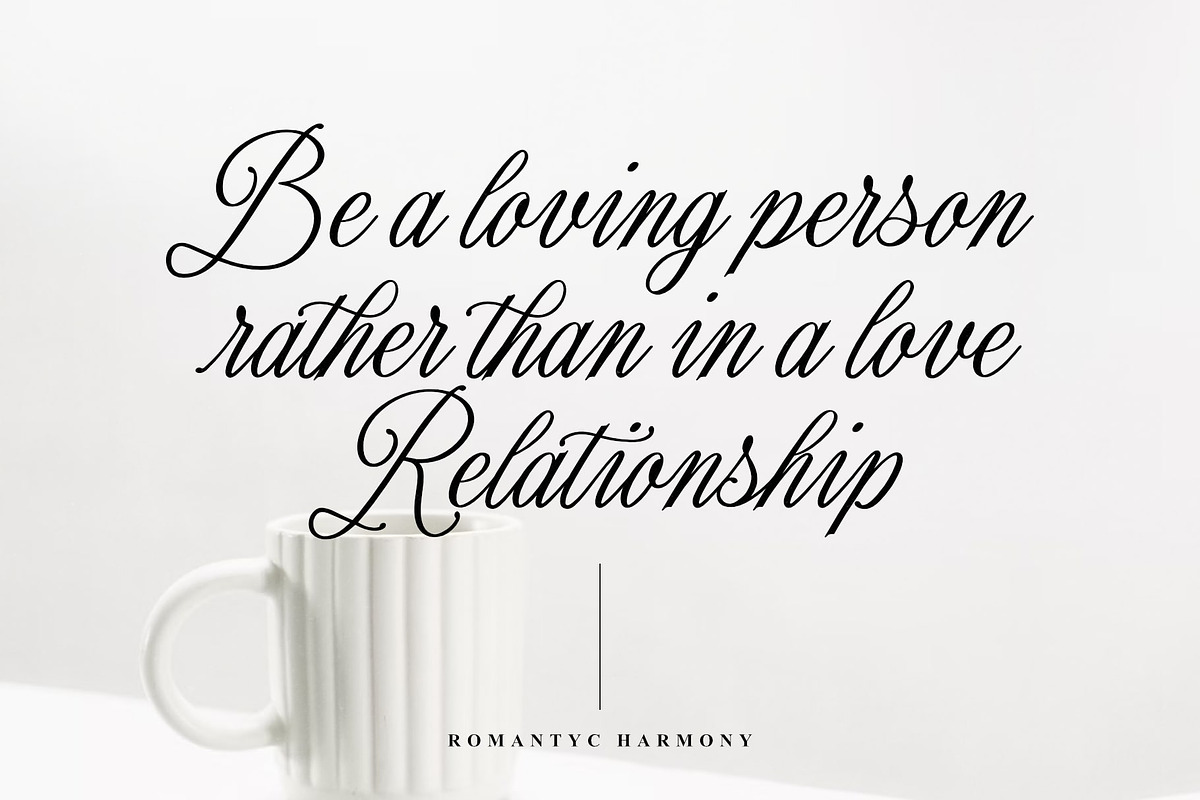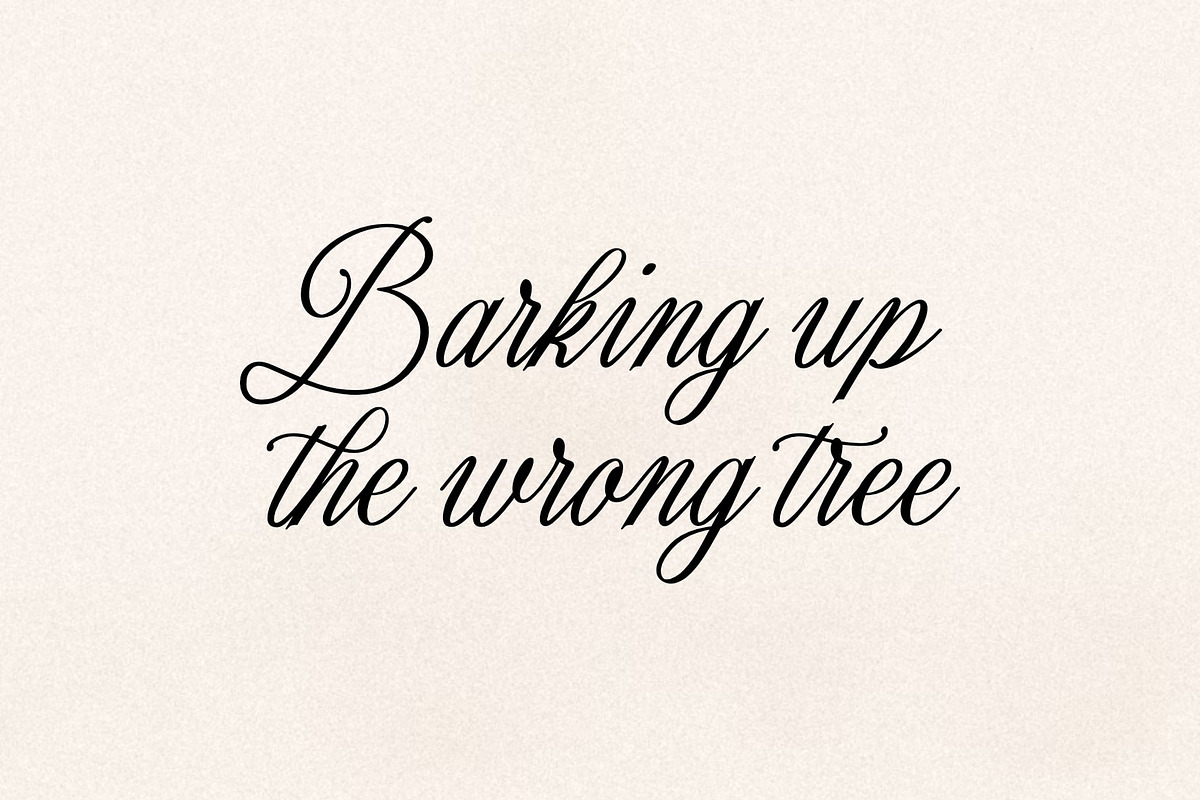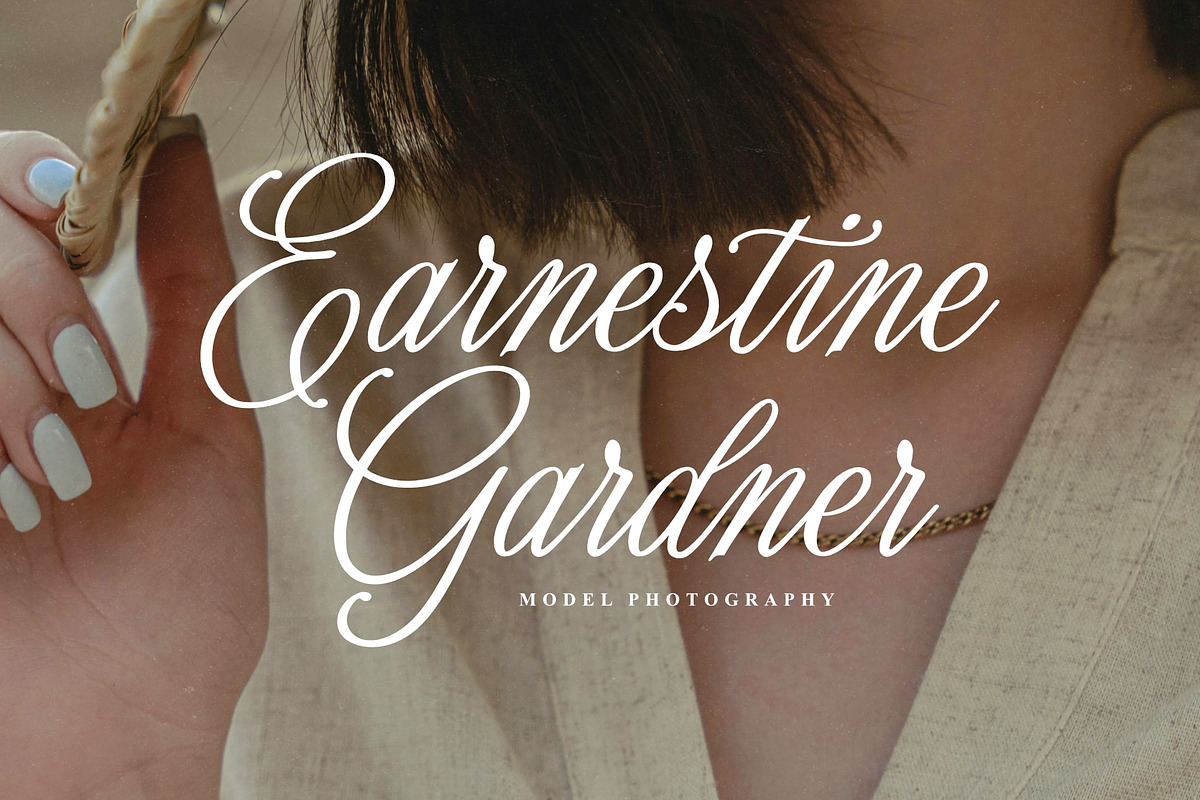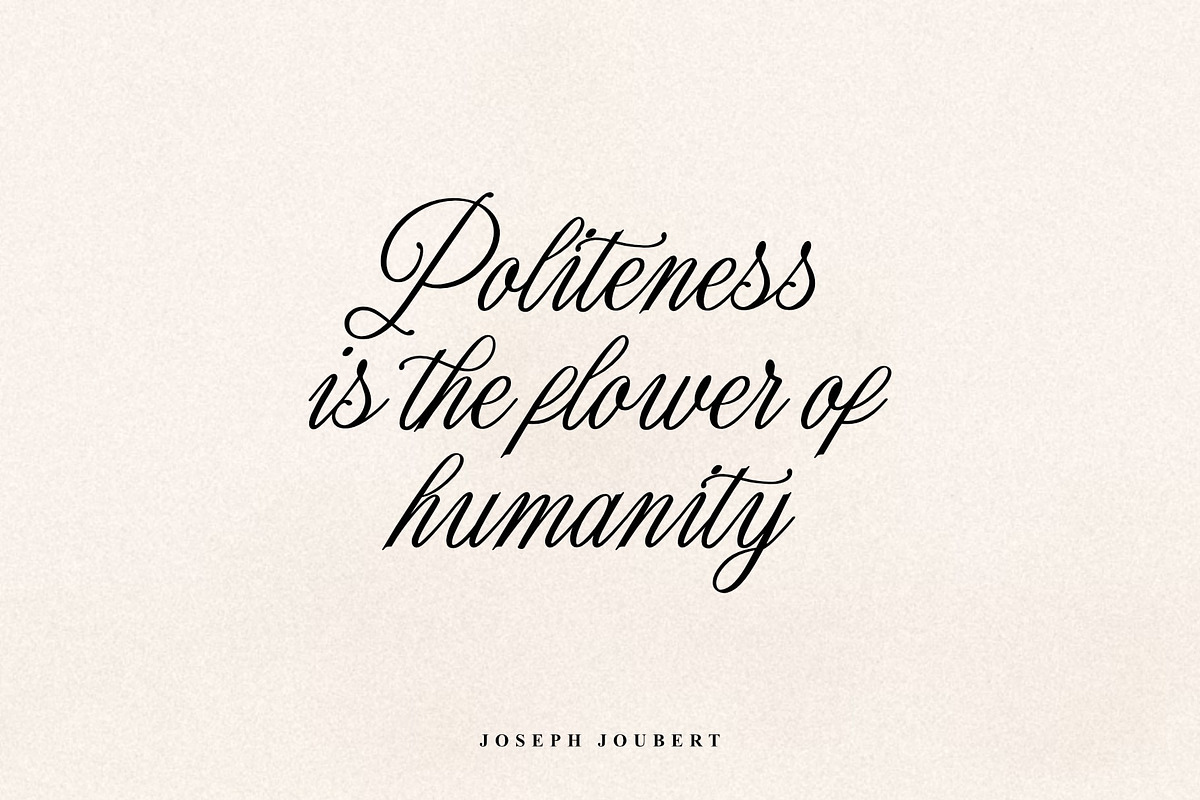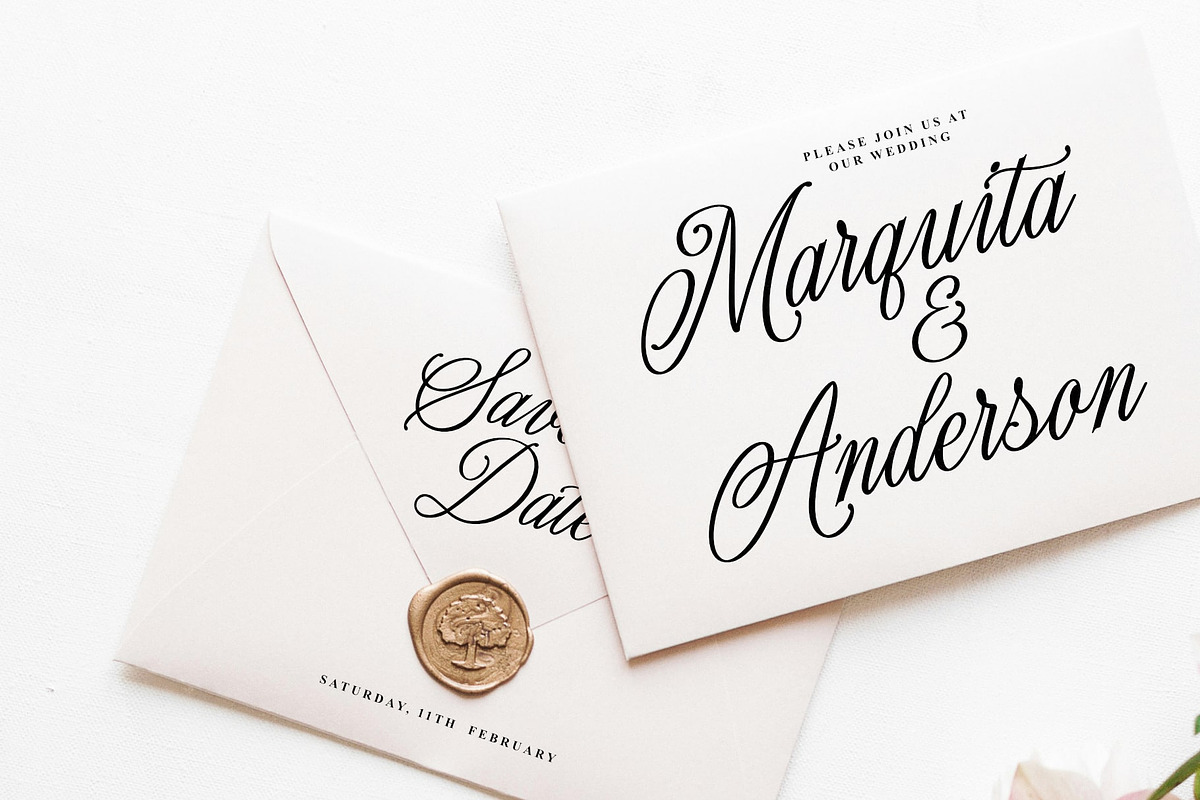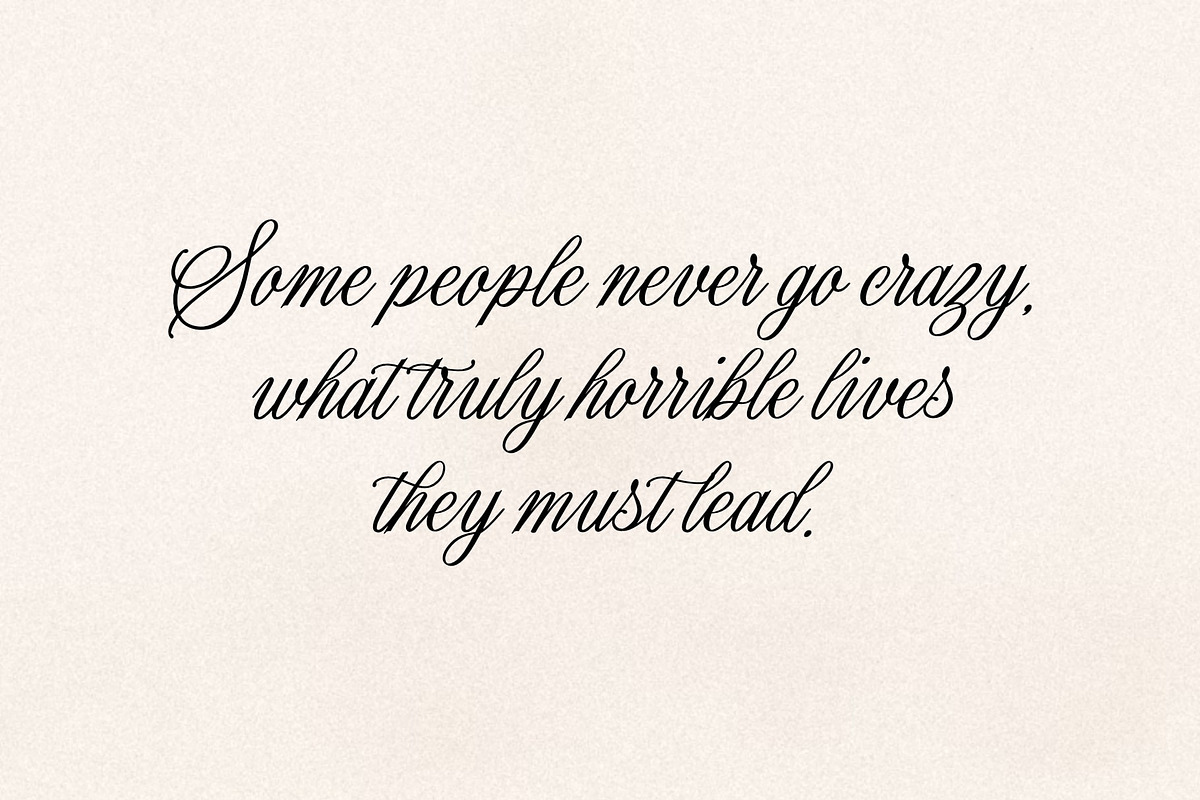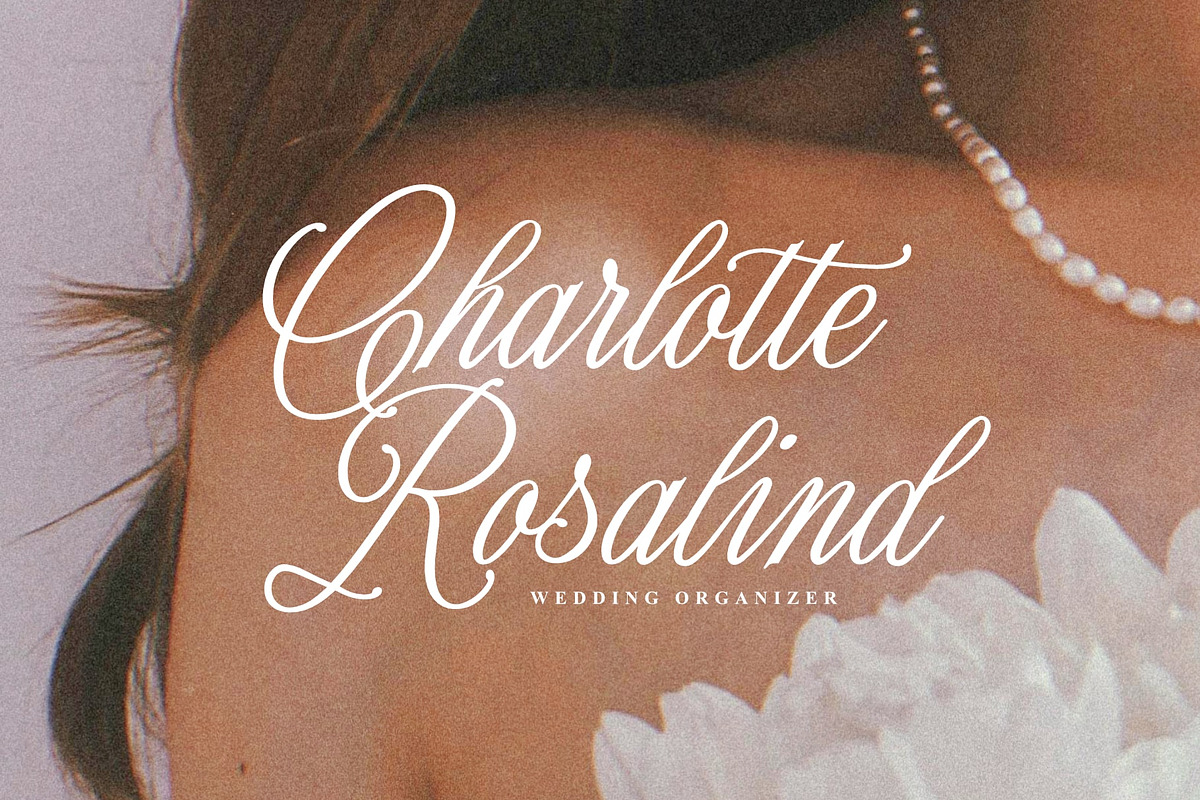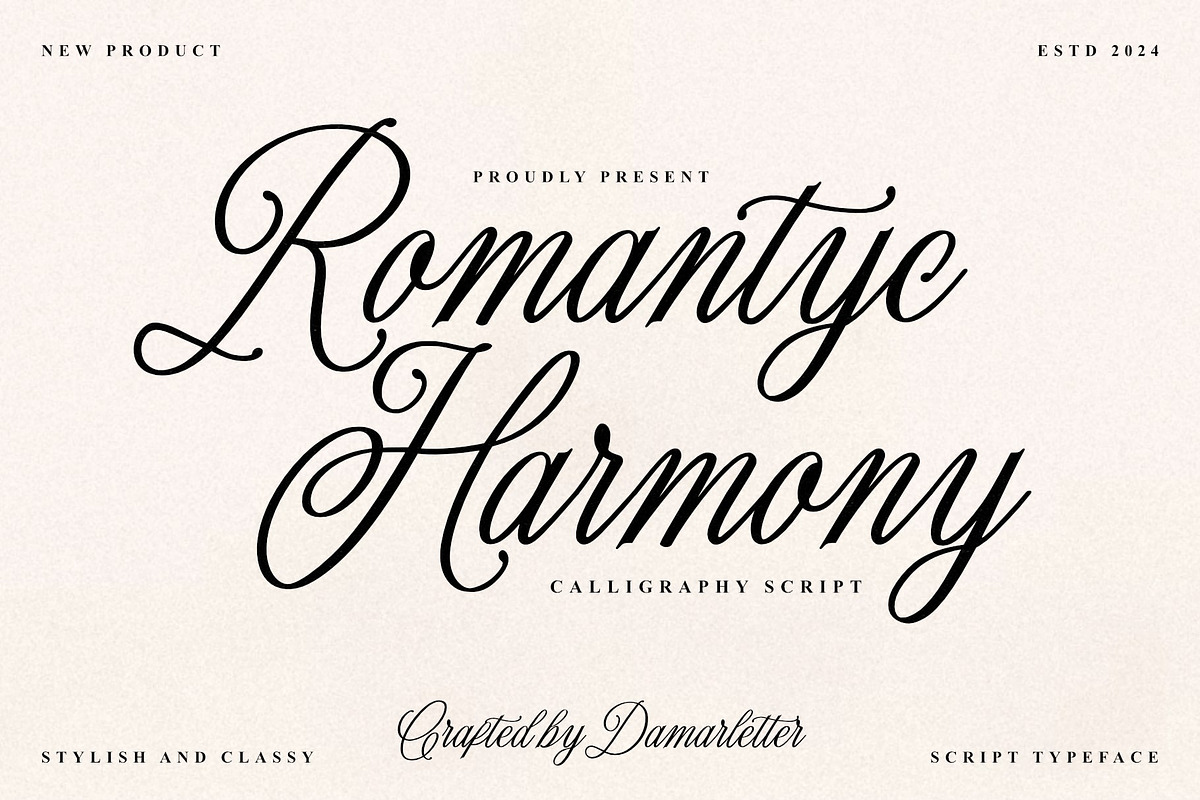
Romantyc Harmony
Romantyc Harmony is an exquisite copperplate calligraphy script typeface that embodies elegance, grace, and timeless beauty. With its delicate strokes, refined curves, and classic calligraphic style, this font is the perfect choice for projects that demand sophistication and charm. From luxurious wedding invitations to upscale branding, Romantyc Harmony adds an air of romance and refinement to any design.